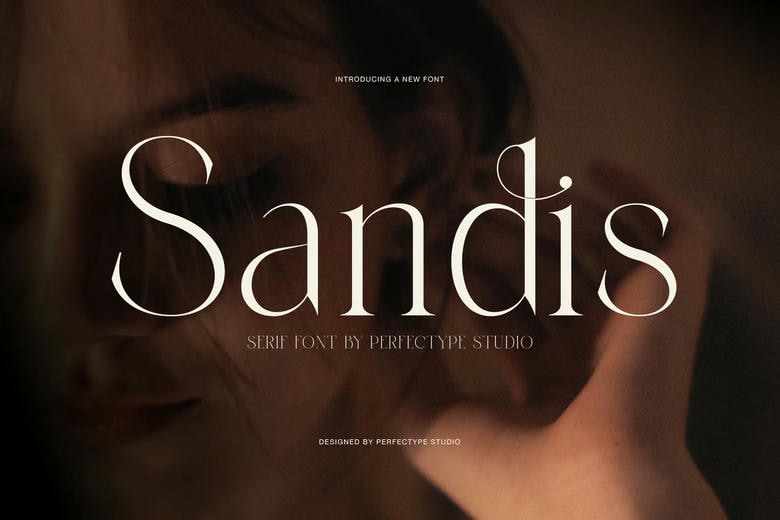
Sandis is a high-contrast serif font designed for fashion, beauty, and sophisticated branding. The big difference between thick and thin strokes gives it a graceful, editorial style. Its tall shape helps headlines look polished and premium.
Sandis has delicate serifs and a bold contrast between thick and thin lines. Large words look expressive without feeling heavy. The thin lines add lightness, and the strong vertical strokes make the letters stand out in display settings.
Smooth curves and sharp serifs give Sandis a modern, stylish look. Its design feels sophisticated, feminine, and artistic, making it a strong option for brands that want a clean and luxurious image.
Sandis Elegant Serif Font